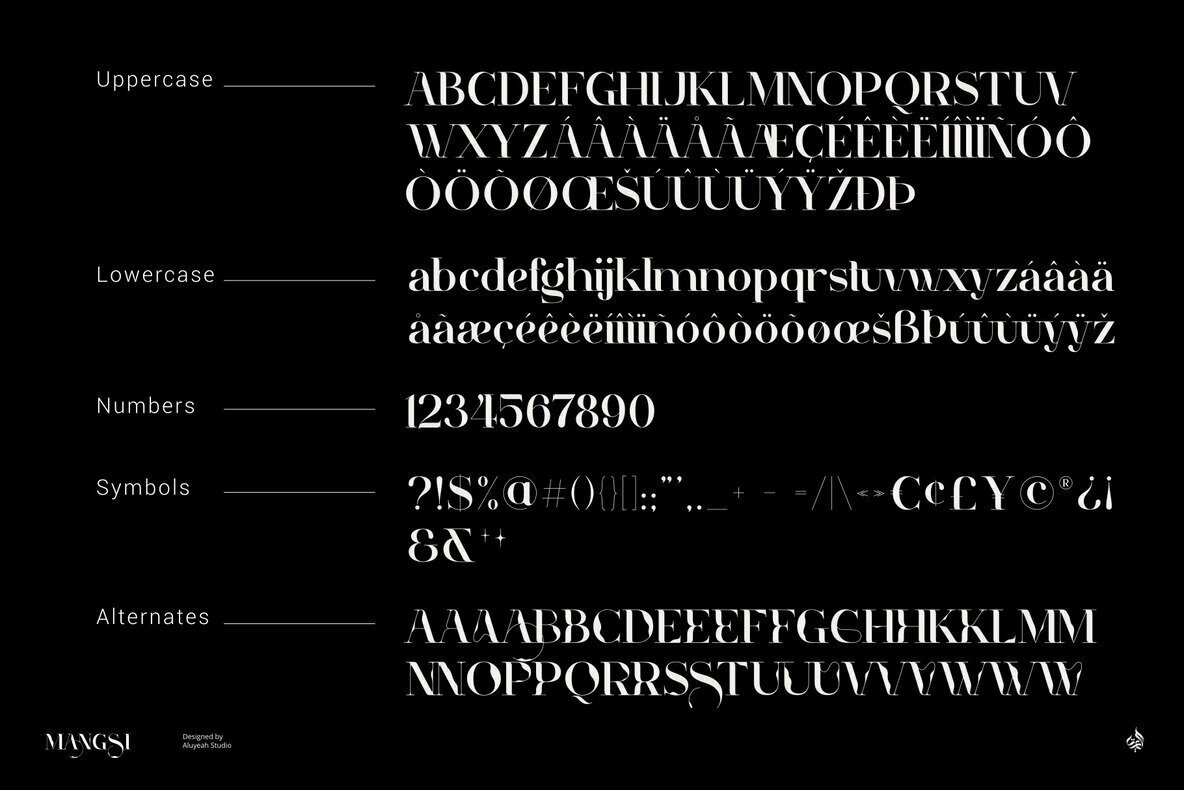
Mangsi: A Modern Inked Display Typeface
Mangsi offers a unique fusion of influences, deftly merging classic ink-inspired lines with a contemporary serif style. This typeface brings together the aesthetics of traditional ink strokes with sleek, modern elements, creating a versatile yet distinctive option suitable for various design projects. Its simple elegance makes it an appealing choice for graphic designers looking to blend history and modernity in their work.
• Elegant Combination – Unites classic ink effects with modern serif strokes.
• Versatile Design – Ideal for diverse design applications.
• Extensive Alternates – Includes over 170 alternates and ligatures for creative flexibility.